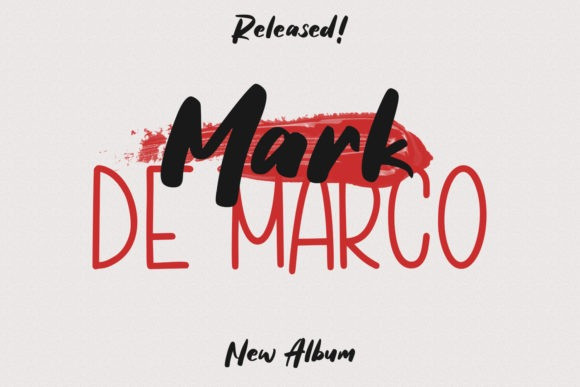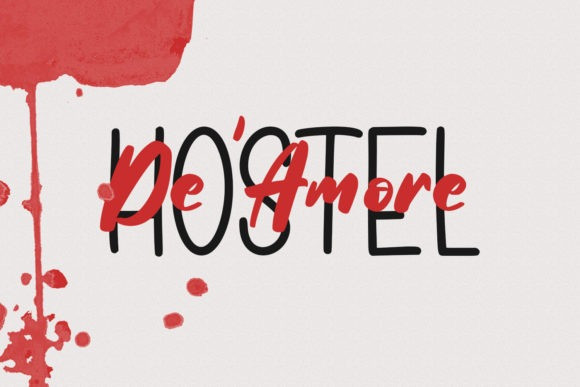
Lutton Park Font
Lutton Park Font is a chic and trendy looking duo font (sans serif and display) font. No matter the topic, this font will be an incredible asset to your fonts’ library, as it has the potential to elevate any creation.